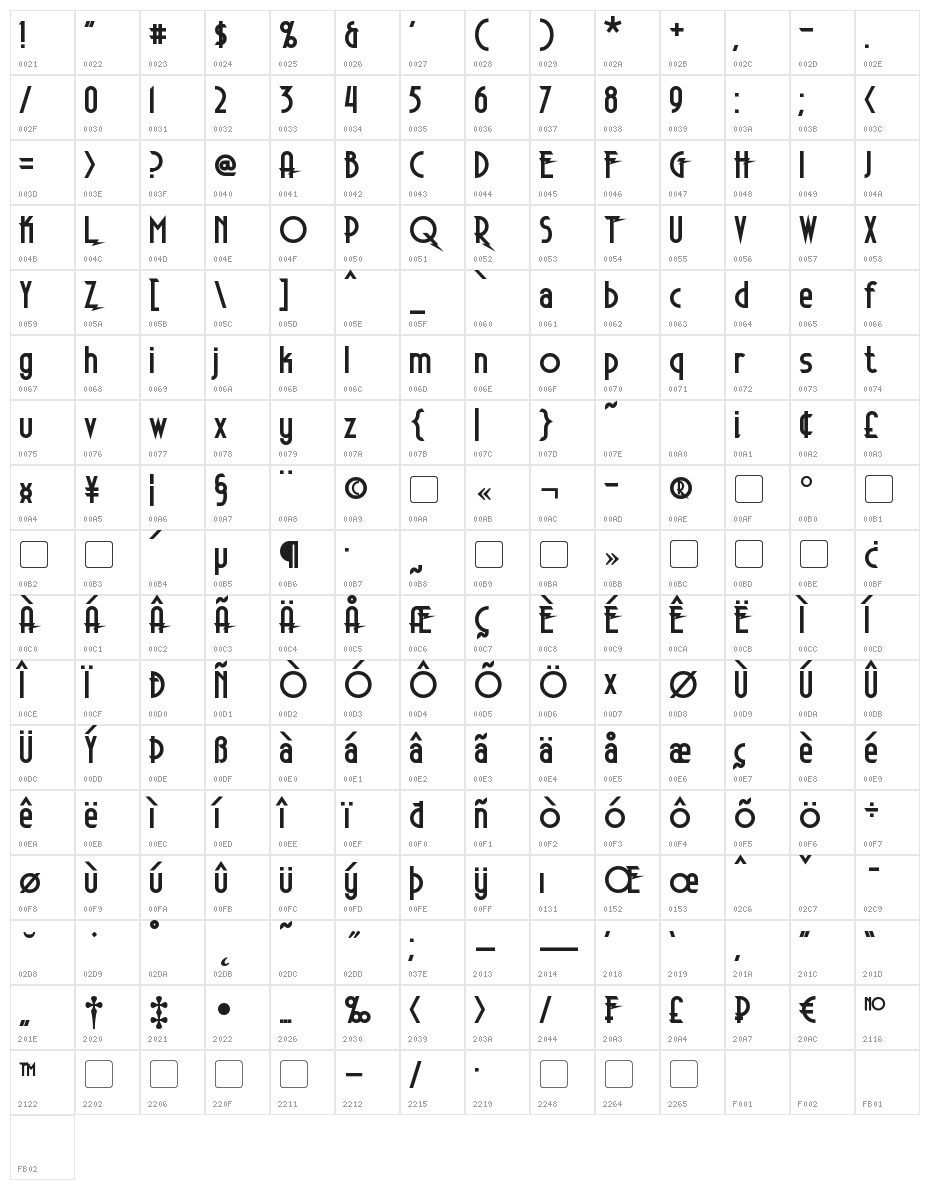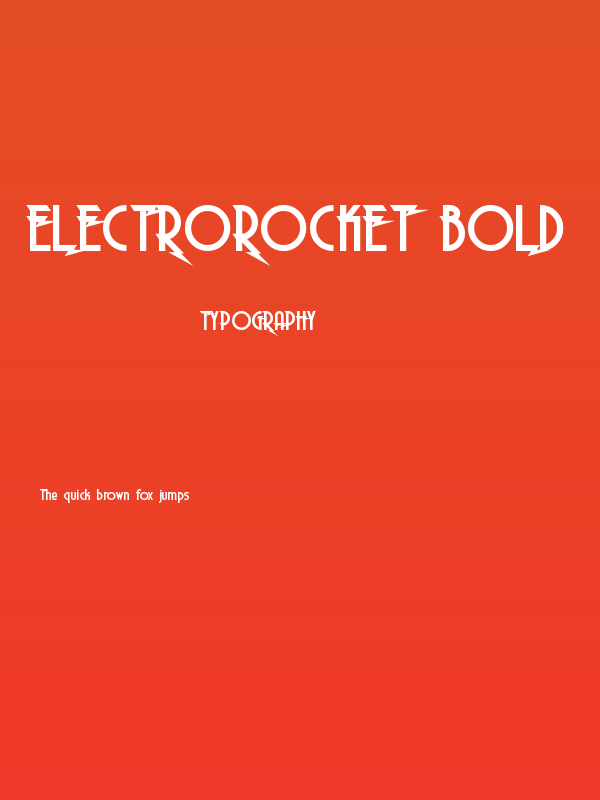
Electrorocket Bold Font
Electrorocket Bold Description
This font features a bold and dynamic design with sharp, angular edges and a futuristic aesthetic. The uppercase letters are particularly striking, with unique lightning bolt-like extensions that give a sense of movement and energy. The lowercase letters maintain a more traditional form but still carry the boldness and modernity of the overall style. Numbers and special characters are consistent with this energetic theme, making the font suitable for attention-grabbing designs. The font's geometric structure and high contrast between thick and thin strokes enhance its visual impact.
| Proposed Projects | Ideal for sci-fi movie posters, tech company logos, video game titles, and any project needing a modern, dynamic look. |